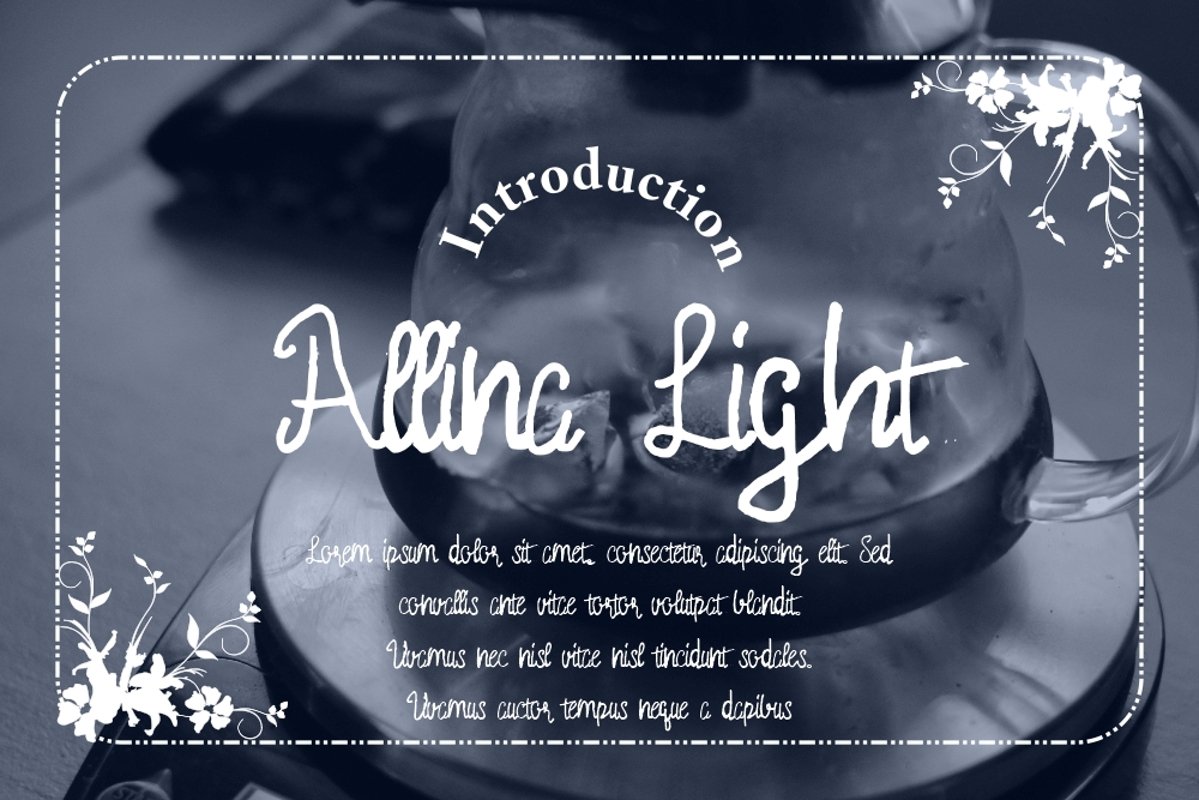
Allina Light
Allina Light Typeface is a Display type. It suitable for any vintage type needs and more Happy creating.Very suitable for you who do exploration